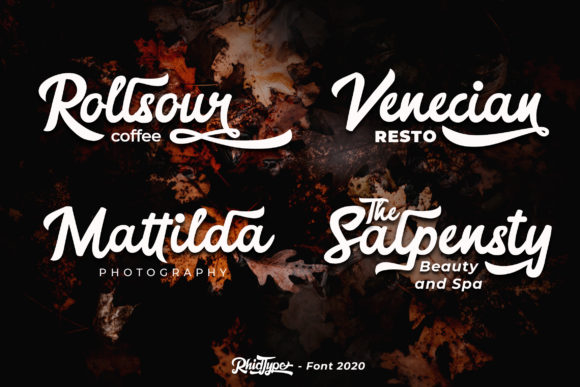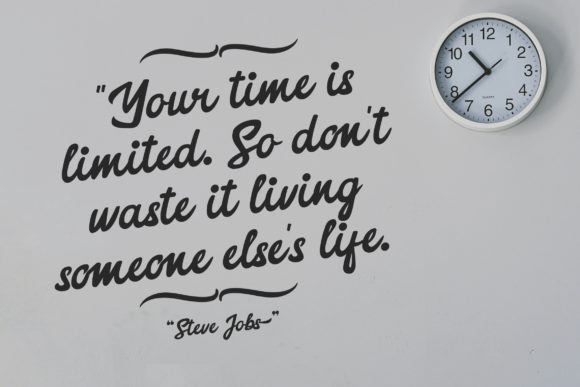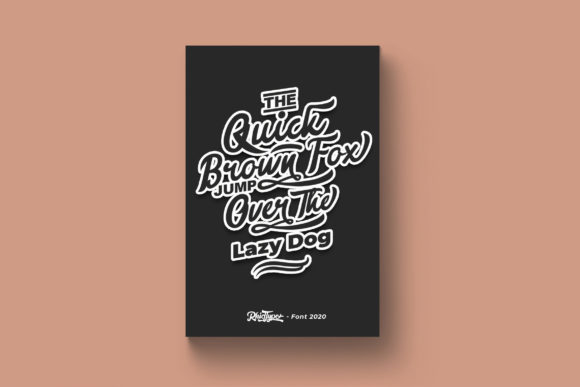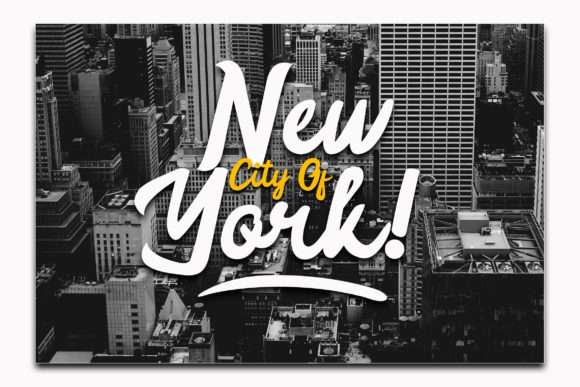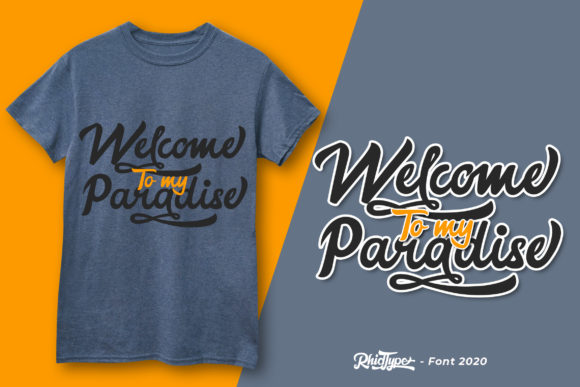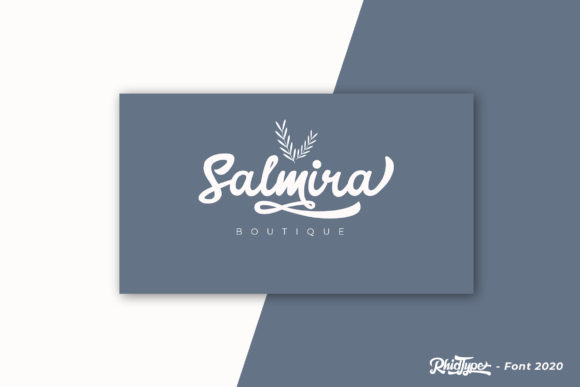
Discover the Magic of Cindy Julia Font
There’s something special about sitting down with a cup of coffee, a blank page, and a pen that just feels like an extension of your hand. The flow of ideas, the dance of your hand across the paper, and the joy of watching your vision take shape – that’s the magic of creating with a beautiful font. And that’s exactly what you’ll experience with the elegant and flowing Cindy Julia Font.
This stunning font is designed to elevate your projects to new heights, with its varying baseline, smooth lines, and gorgeous glyphs that will leave your audience in awe. As a designer, you know how much a beautiful font can make or break a design. That’s why Cindy Julia Font is a valuable addition to your toolkit, offering a unique blend of classy calligraphic influences and contemporary freshness.
Cindy Julia Font Key Features
- Font Family: Cindy Julia
- Unique Characteristics: Elegant script font with a touch of vintage charm, suitable for wedding invitations, greeting cards, and other formal events
- Font Style: Script, Calligraphy
Cindy Julia Font Review
Overall, I have mixed feelings about the Cindy Julia Font. While it has its strengths, there are some limitations that prevent me from giving it a full endorsement.
- Cindy Julia Font has a unique and elegant aesthetic that makes it perfect for high-end fashion brands, luxury goods, or fine dining restaurants.
- The font is highly legible, even at smaller font sizes, making it suitable for body text or signage.
- The font’s subtle flourishes and refined lines give it a sophisticated and cultured feel.
- Cindy Julia Font may be too ornate for some brands, especially those with a more minimalist or modern aesthetic.
- The font’s elegance comes at the cost of readability at very large font sizes, making it less suitable for headings or titles.
- The font’s high x-height may make it less legible in certain fonts or environments.
Overall, I would recommend Cindy Julia Font to designers who are looking for a sophisticated and elegant solution for their high-end projects. However, it may not be the best fit for every brand or project.
To get the most out of the Cindy Julia Font, use it sparingly and strategically to create visual interest. Combine it with other fonts and design elements to create a balanced and harmonious design. Experiment with different font sizes, styles, and colors to find the perfect fit for your project.
The Cindy Julia Font is ideal for creative and artistic projects, such as:
- Designing wedding invitations and stationery
- Creating marketing materials and social media graphics
- Developing branding and logo designs
- Designing book covers and editorial materials
Comparison to Cindy Julia Font: While Cindy Julia Font has a more playful and whimsical feel, Great Vibes Font is more elegant and refined. Great Vibes Font is better suited for formal designs, whereas Cindy Julia Font is better suited for casual designs.
Comparison to Cindy Julia Font: Carolyna Pro Font is more modern and sleek than Cindy Julia Font, making it better suited for high-end designs. While Cindy Julia Font is more versatile, Carolyna Pro Font is more formal and luxurious.